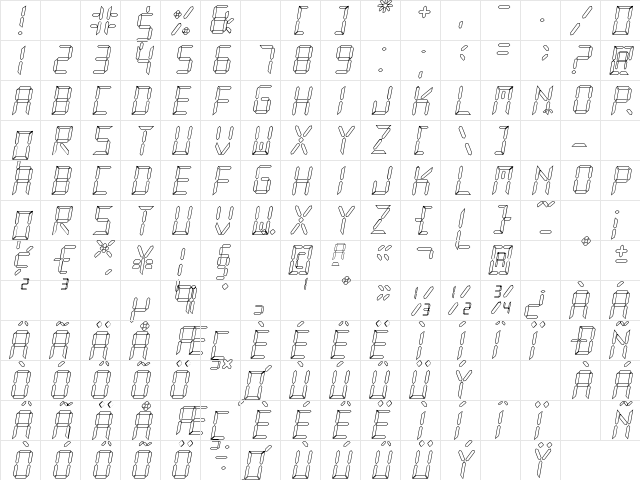
New X Digital tfb Hollow Regular
Design Context for New X Digital tfb Hollow Typeface
New X Digital tfb Hollow channels digital-age aesthetics through its sharp, structured letterforms — ideal for brands that want to signal innovation.
Pro Tip: Use New X Digital tfb Hollow in combination with a neutral sans for body text. Let it define the brand voice in headlines while keeping reading comfortable elsewhere.